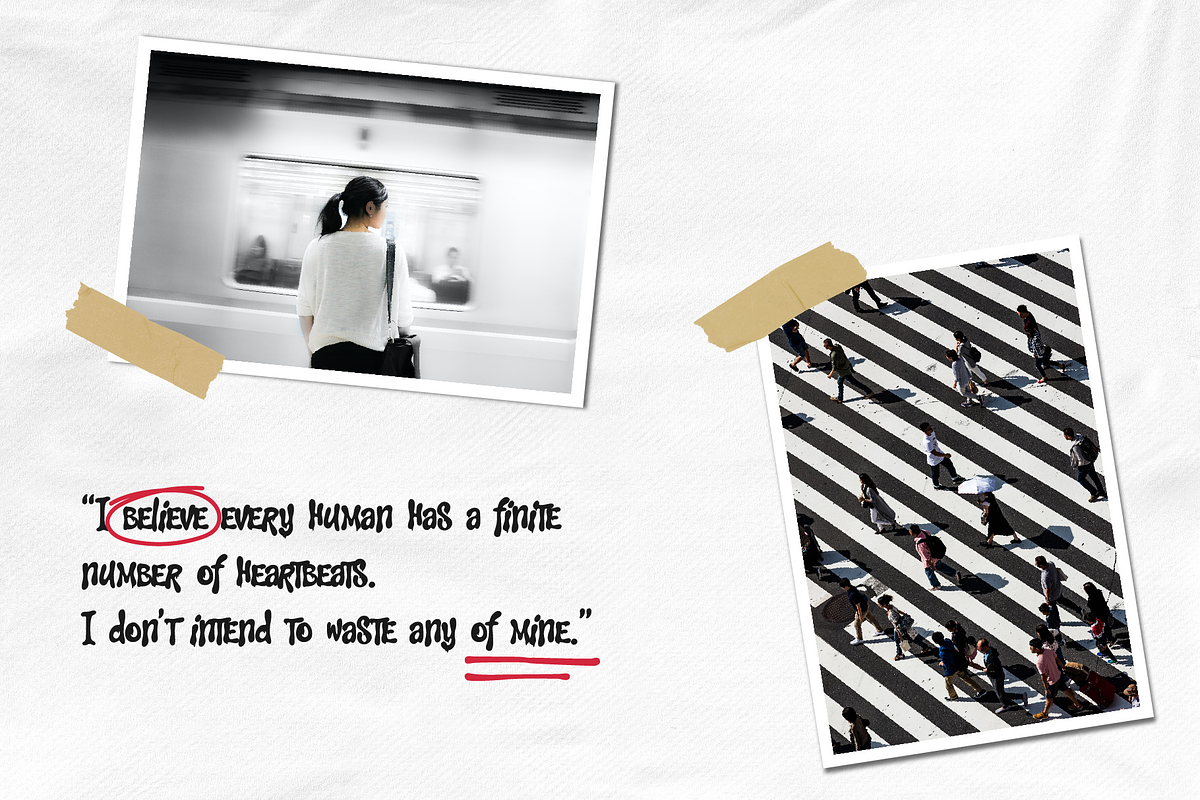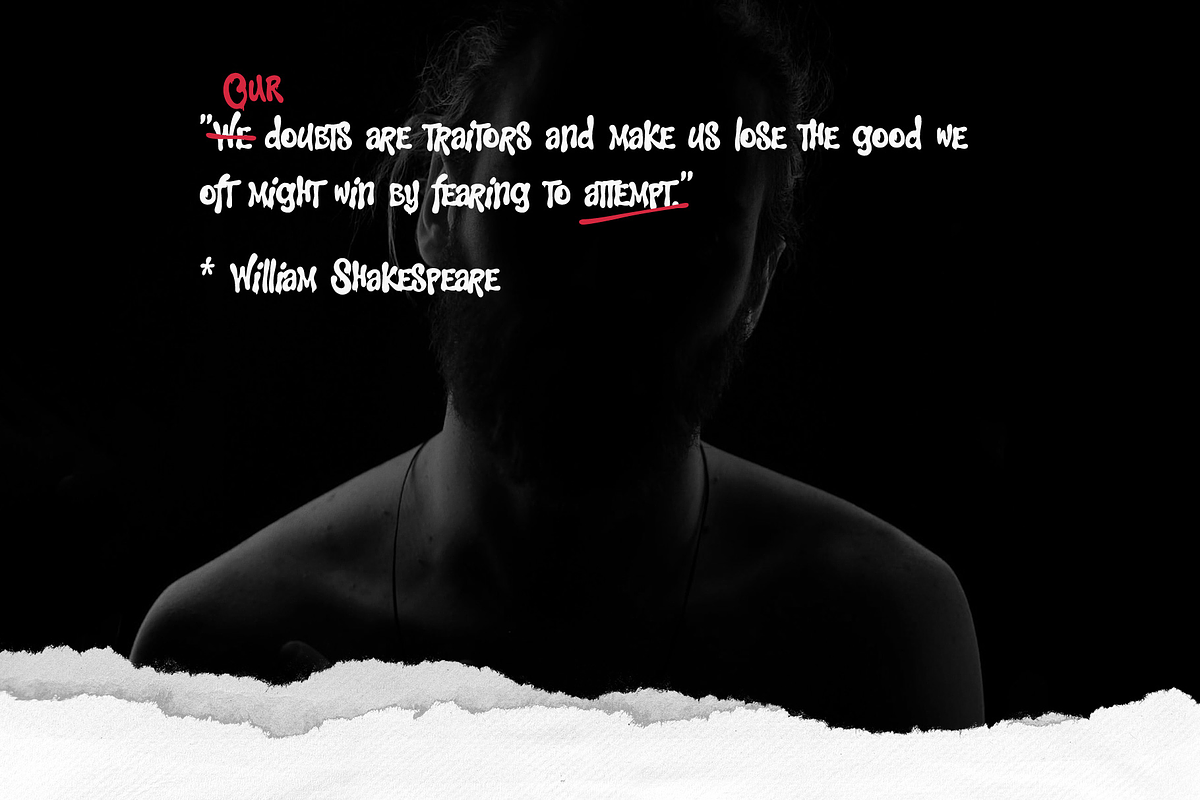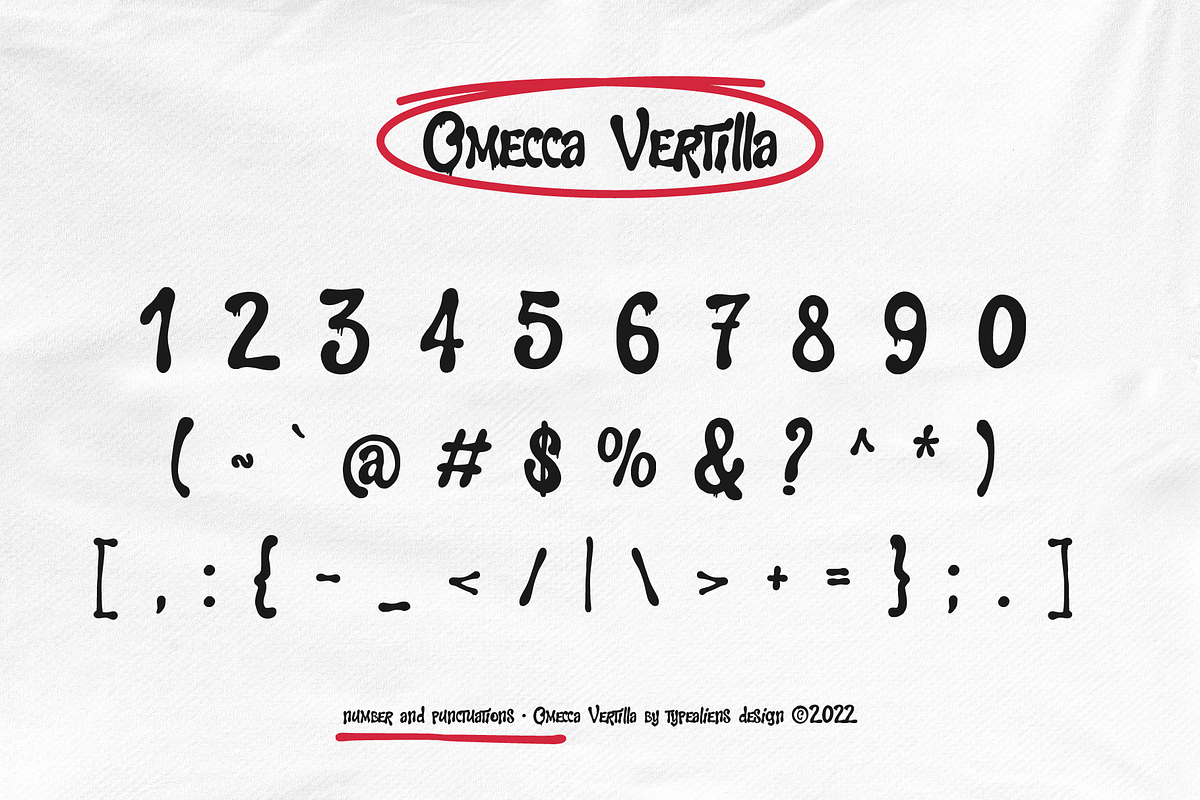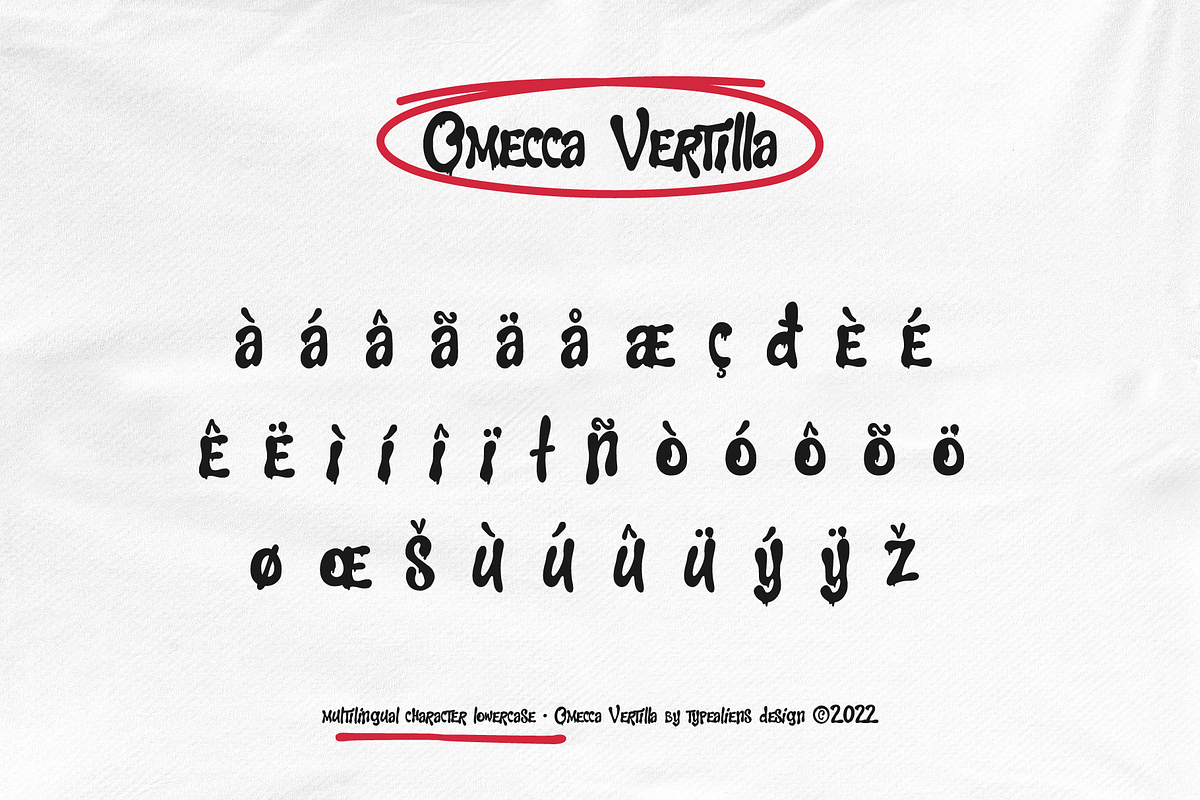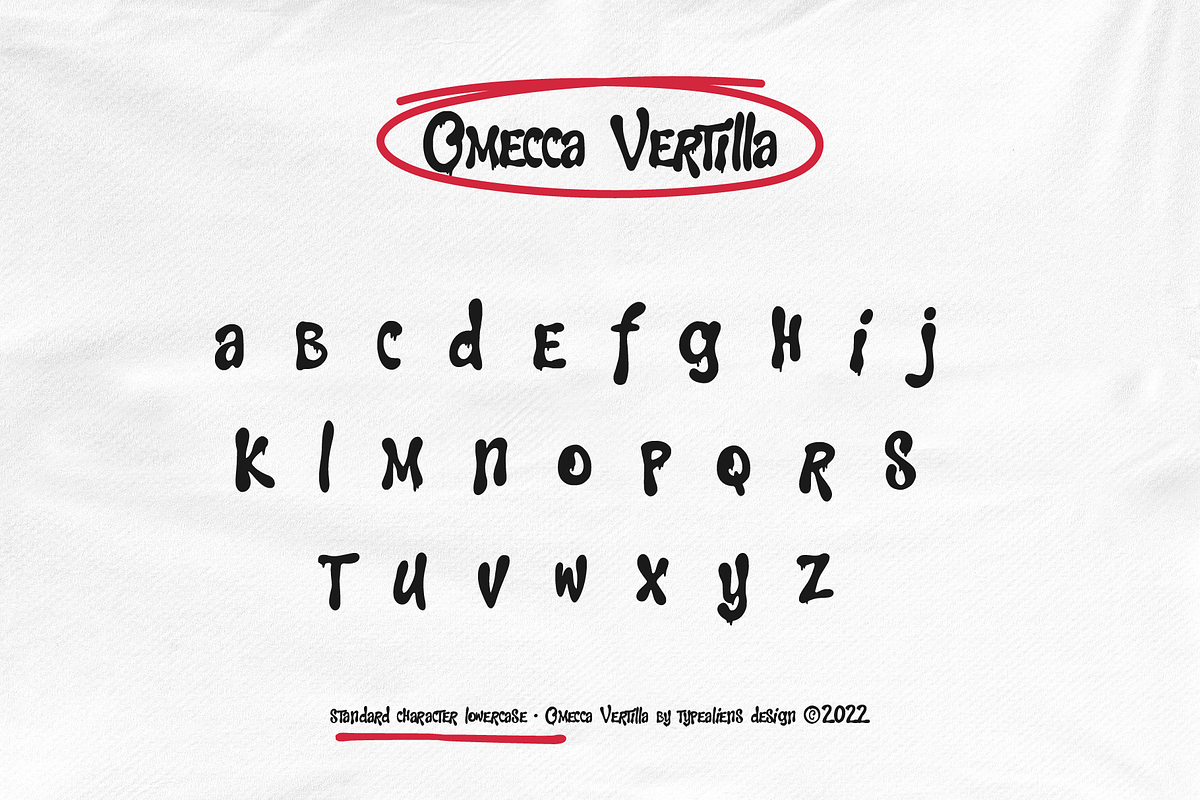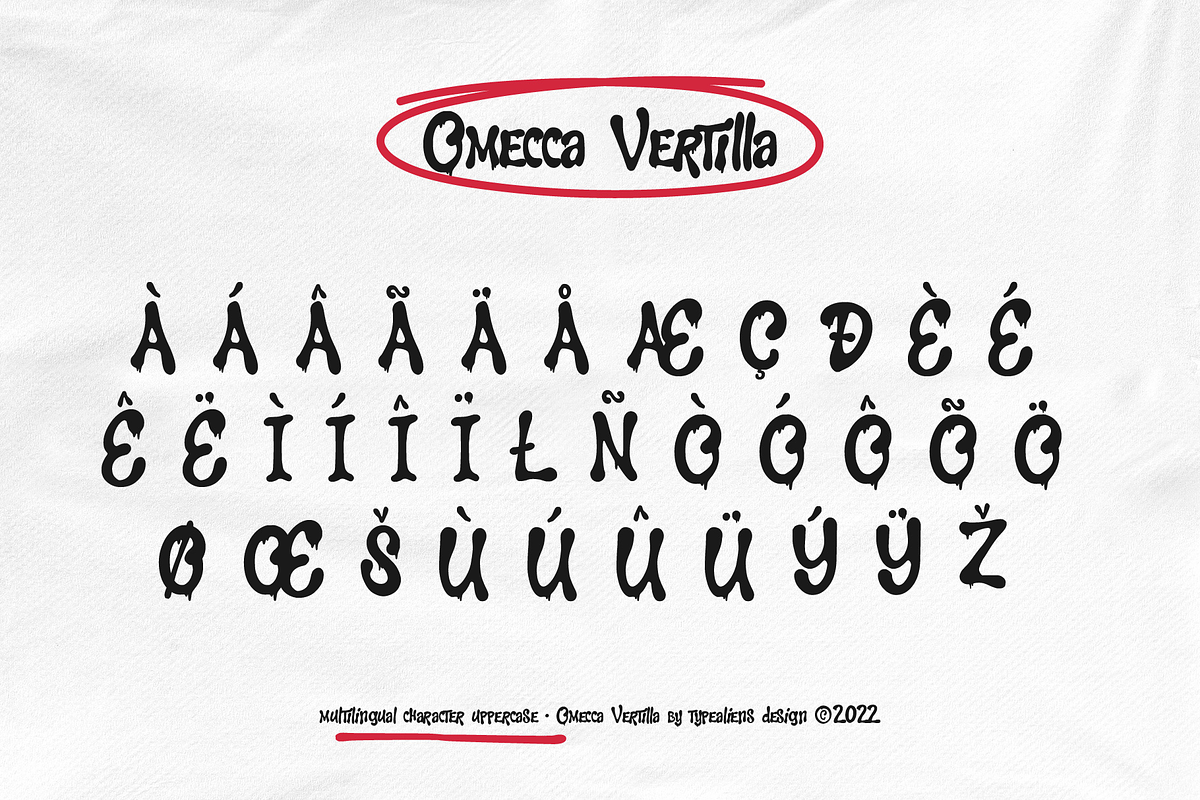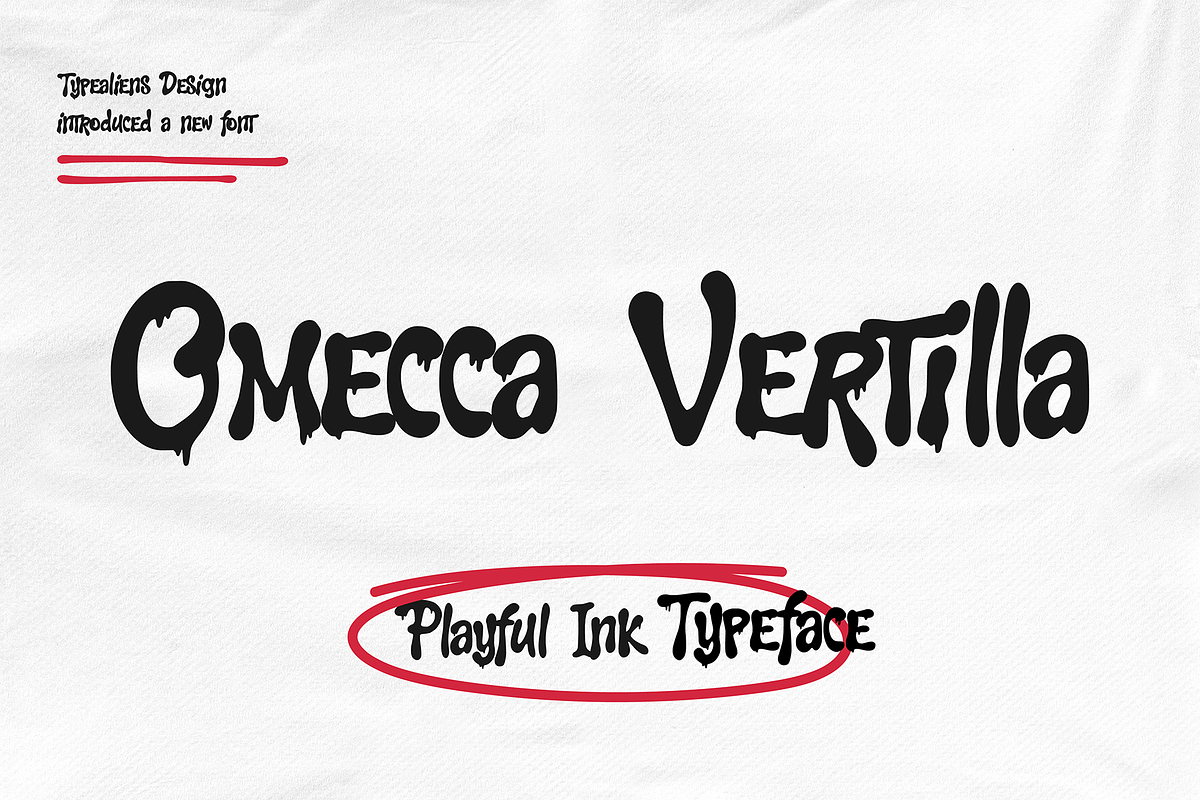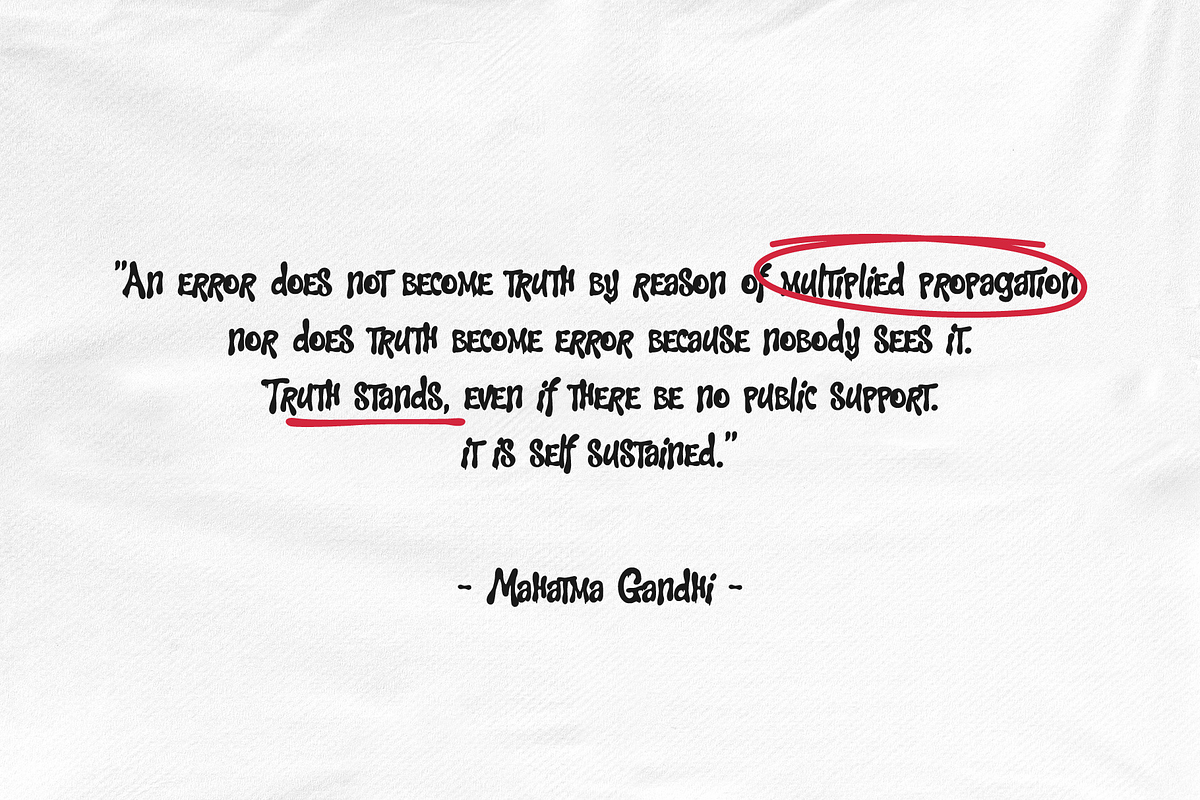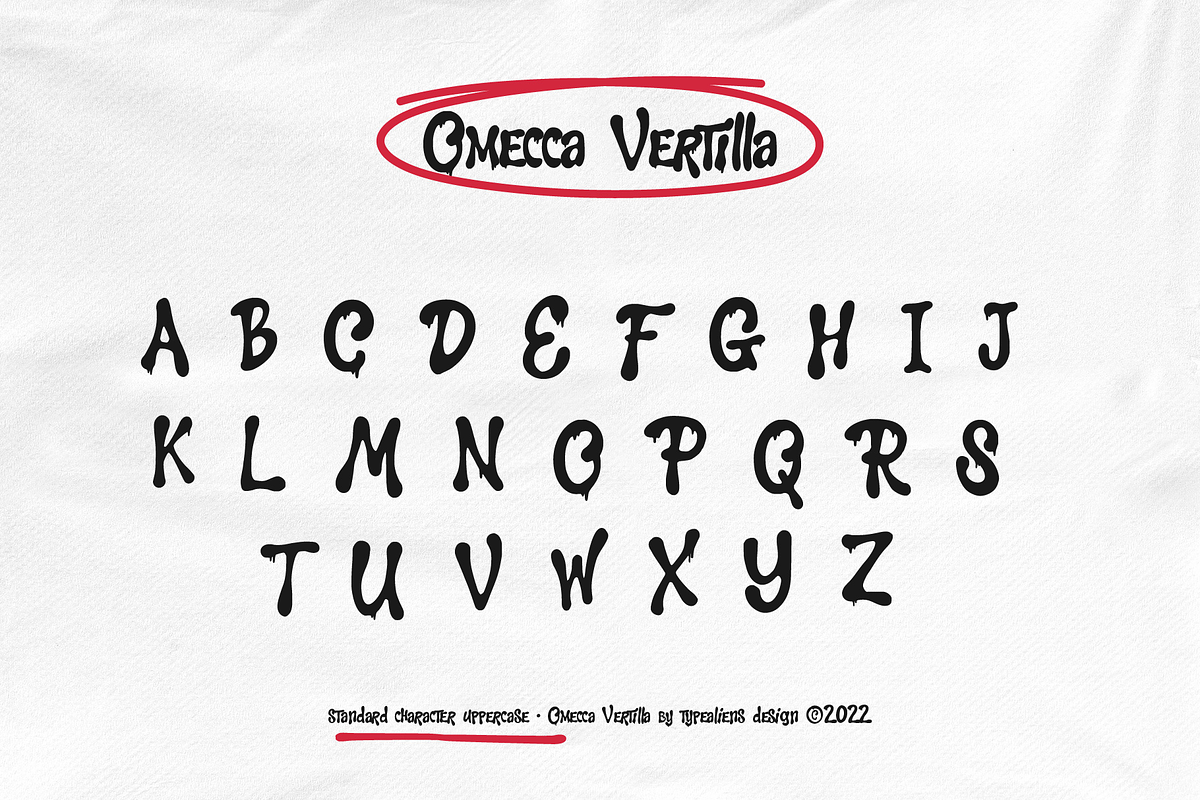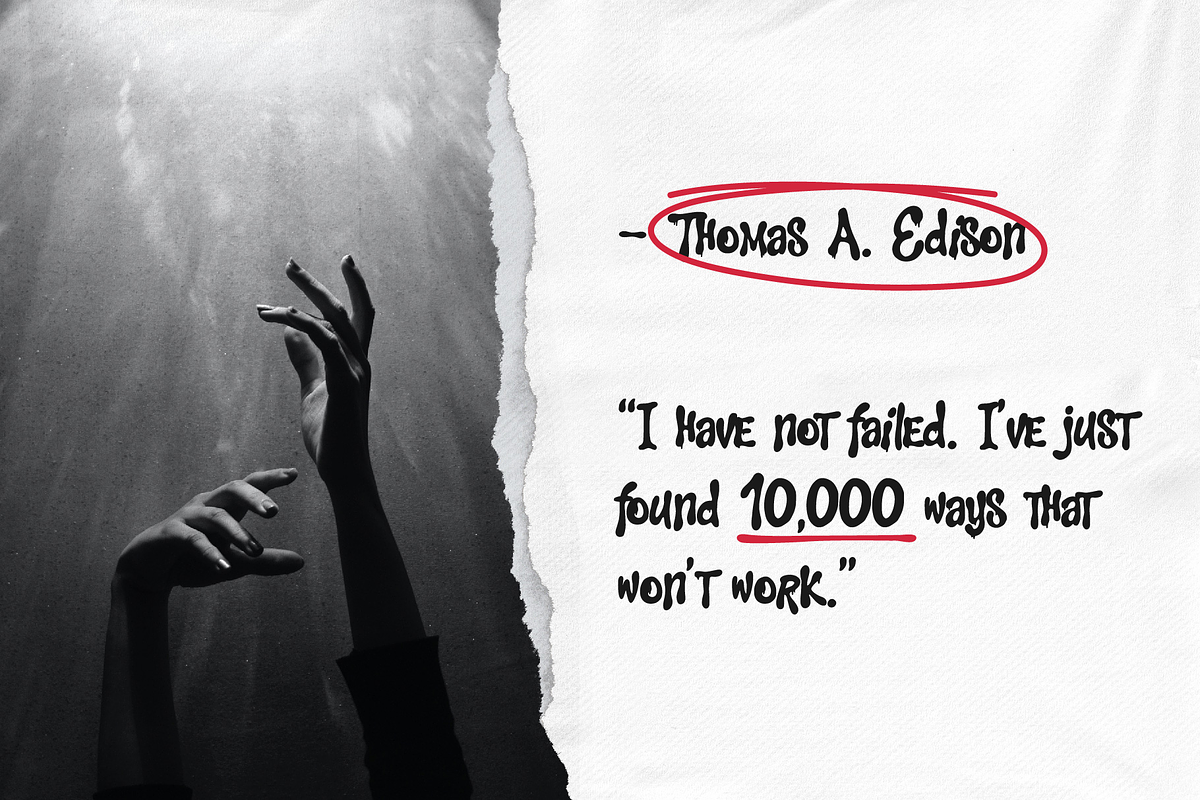
Omecca Vertilla
OMECCA VERTILLA
Omecca Vertilla is a playful display font, with a slight melting effect like dripping ink. This modern font is very suitable for branding modern styles such as for social media on food or snack brands.
The font is based on a relaxed sans serif font with varying letter heights so that it is very free to express a more wild, playful and relaxed design style.